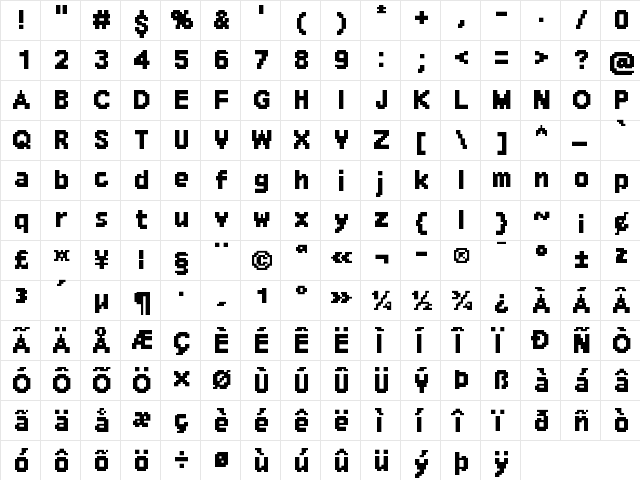
Complete AriW9500 Condensed Display Regular glyph index. Displaying only characters natively supported by AriW9500 Condensed Display Regular font.
AriW9500 Condensed Display is built around its visual character rather than neutral utility - its distinctive forms are designed to make an impression at display sizes.
Font Pairing: Pair with a clean neutral sans-serif for body copy to let AriW9500 Condensed Display's character lead without overwhelming the composition.
Pro Tip: Use AriW9500 Condensed Display exclusively at display sizes - it was designed to be seen, not read at length. Let a neutral companion handle body copy.